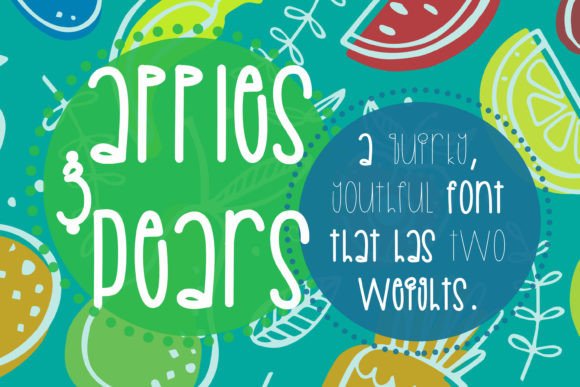
Introducing Apples and Pears Font: The Perfect Addition to Your Design Arsenal
Are you on the hunt for a font that’s as sweet as it is versatile? Look no further than Apples and Pears, a delightful handwritten font that’s sure to bring a touch of youthful charm to your designs. In this article, we’ll dive into the world of Apples and Pears, exploring its unique characteristics, uses, and pairing possibilities.
The Charm of Apples and Pears Font
Apples and Pears is a cute, handwritten font that’s perfect for designers and crafters looking to add a personal touch to their work. Its youthful and playful vibe makes it an excellent choice for a wide range of projects, from kids’ party invitations and educational materials to branding and packaging.
One of the standout features of Apples and Pears is its exceptional legibility. The font’s carefully crafted letters are easy to read, even at smaller sizes, making it perfect for body text and captions. Additionally, its unique character set includes a range of special characters, numbers, and punctuation marks, ensuring that you have everything you need to create stunning designs.
Pairing Possibilities
Apples and Pears is a font that plays well with others, especially script fonts. Its handwritten nature makes it an excellent match for elegant scripts, bold sans-serifs, and even quirky display fonts. Here are some pairing suggestions to get you started:
- Script Fonts: Pair Apples and Pears with elegant scripts like Pacifico, Great Vibes, or Carolyna Pro for a sophisticated look.
- Bold Sans-Serifs: Combine Apples and Pears with bold sans-serifs like Arial Black, Impact, or Museo for a striking contrast.
- Display Fonts: Match Apples and Pears with quirky display fonts like Comic Sans, Arial Rounded, or Open Sans for a playful vibe.
Uses for Apples and Pears Font
Apples and Pears is a versatile font that can be used in a variety of contexts. Here are some ideas to get you started:
- Kids’ Party Invitations: Create adorable invitations, flyers, and posters for kids’ parties and events.
- Educational Materials: Use Apples and Pears for educational resources, such as worksheets, activity sheets, and educational posters.
- Branding and Packaging: Add a touch of whimsy to your brand’s packaging, labels, and marketing materials.
- Social Media Graphics: Create engaging social media graphics, such as quote graphics, Facebook posts, and Instagram stories.
Tips for Using Apples and Pears Font
To get the most out of Apples and Pears, here are some tips to keep in mind:
- Experiment with Sizes: Play around with different font sizes to create visual interest and hierarchy.
- Mix and Match: Combine Apples and Pears with other fonts to create a unique and eye-catching design.
- Use it for Headings and Body Text: Apples and Pears works well for both headings and body text, making it a great choice for long-form content.
Apples and Pears is a delightful handwritten font that’s sure to bring a touch of youthful charm to your designs. With its exceptional legibility, unique character set, and versatility, it’s perfect for a wide range of projects. Whether you’re a designer, crafter, or DIY enthusiast, Apples and Pears is an excellent addition to your font collection.